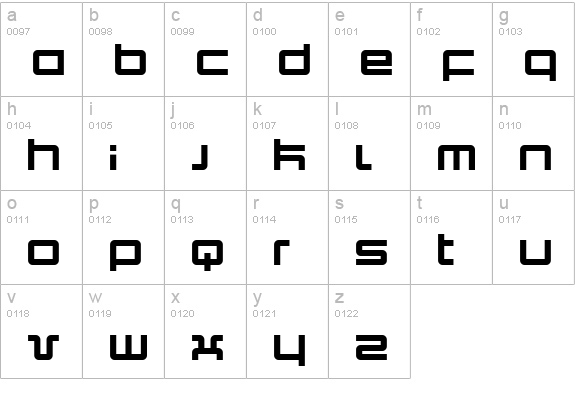
Quark font is a stunning typeface that combines elegance with a touch of modernity. Its sleek and sophisticated design makes it perfect for a wide range of design projects, from brand logos to editorial layouts. Featuring clean lines and well-defined curves, Quark font exudes a sense of professionalism and refinement. Its versatility allows it to effortlessly adapt to both digital and print media, ensuring that your message is conveyed with utmost clarity and style. One of the most appealing aspects of Quark font is its availability as a free download. You can easily access this exceptional typeface at FontsMarket.com, where it is freely offered to designers and typographers alike. This not only makes it a cost-effective choice, but it also enables you to experiment and explore the font's endless possibilities without any restrictions. Quark font's extensive character set includes various weights and styles, allowing you to create dynamic and visually captivating designs. Whether you're looking to elevate your website's typography, enhance your branding materials, or create eye-catching headlines, Quark font is the perfect companion to help you achieve your artistic vision. With its seamless legibility and attention to detail, Quark font ensures that every letter, word, and sentence is flawlessly rendered. Its timeless appeal and contemporary edge make it an indispensable tool for designers seeking a font that stands out from the crowd. Don't miss the opportunity to incorporate Quark font into your creative projects. Download it for free today at FontsMarket.com and let your imagination run wild with this remarkable typeface.